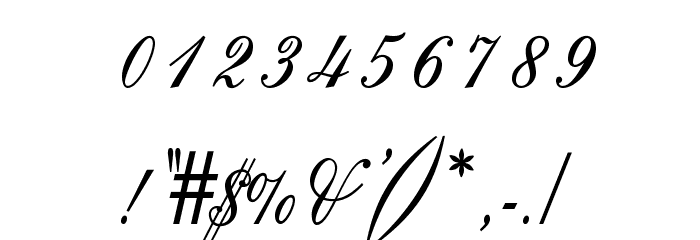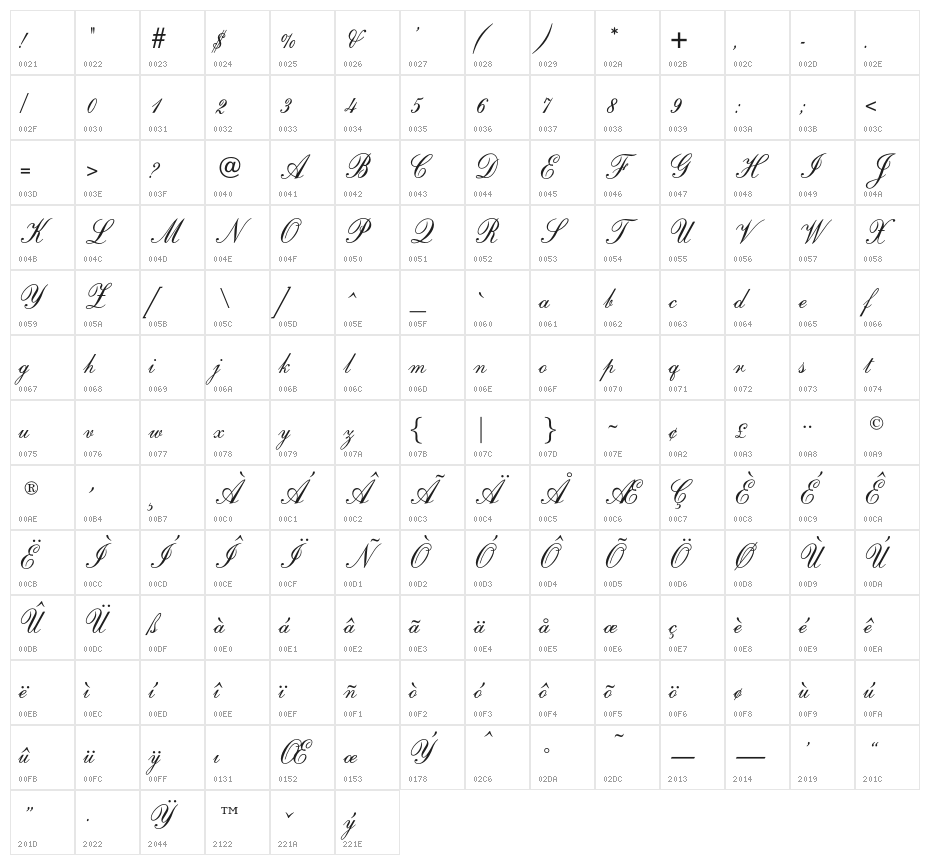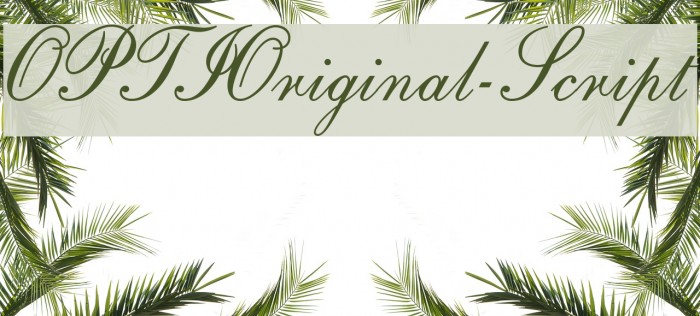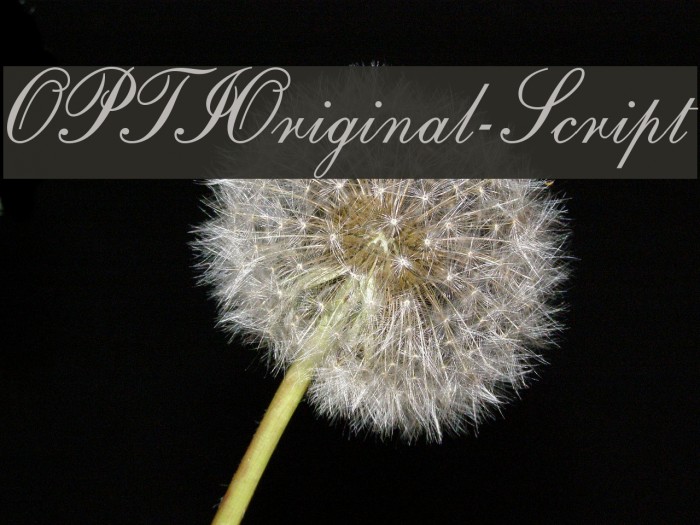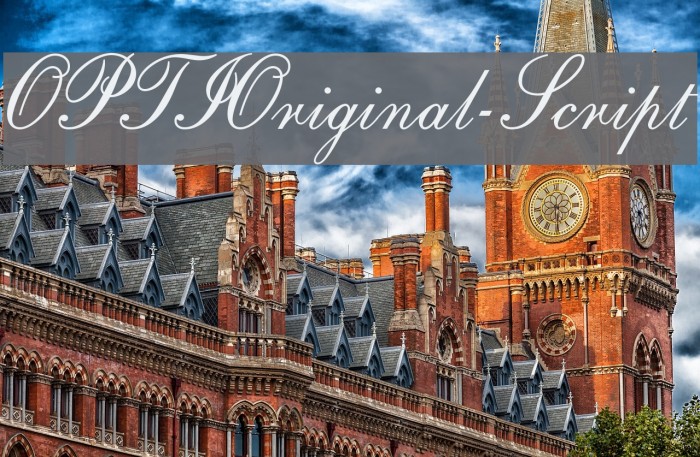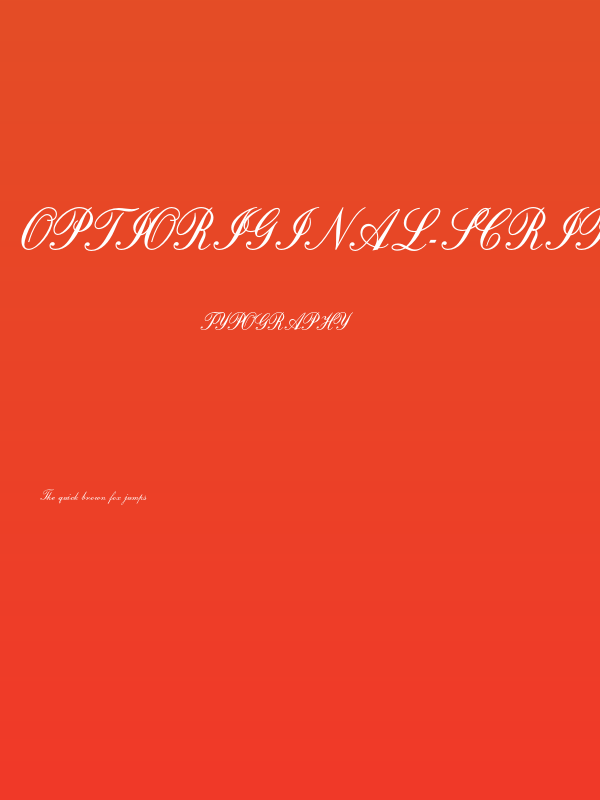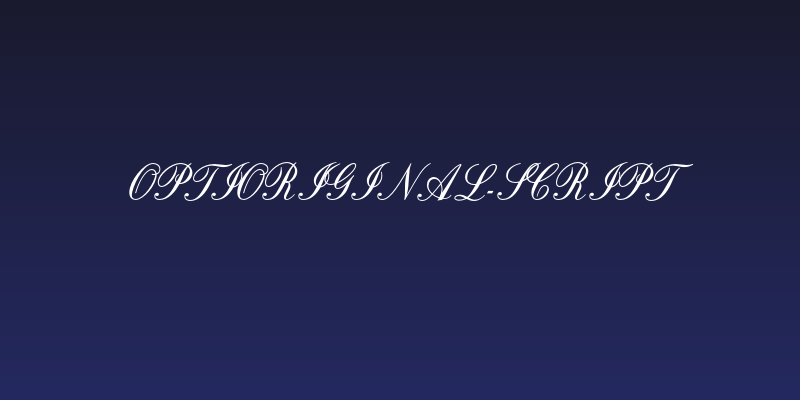
OPTIOriginal-Script Font
OPTIOriginal-Script Description
This elegant script font features flowing, cursive letterforms with a classic and sophisticated appearance. The uppercase letters are ornate and slightly slanted, while the lowercase letters maintain a smooth, connected style that enhances readability. The numerals are consistent with the script's overall aesthetic, offering a refined look. Special characters are designed to complement the script's fluidity, making it suitable for decorative purposes. The font's delicate strokes and graceful curves evoke a sense of timeless elegance, making it ideal for formal invitations, branding, and other projects requiring a touch of sophistication.
| Use Case | Headlines, Invitations, Branding |
| Proposed Projects | Ideal for wedding invitations, elegant branding, formal event programs, and luxury product packaging. |